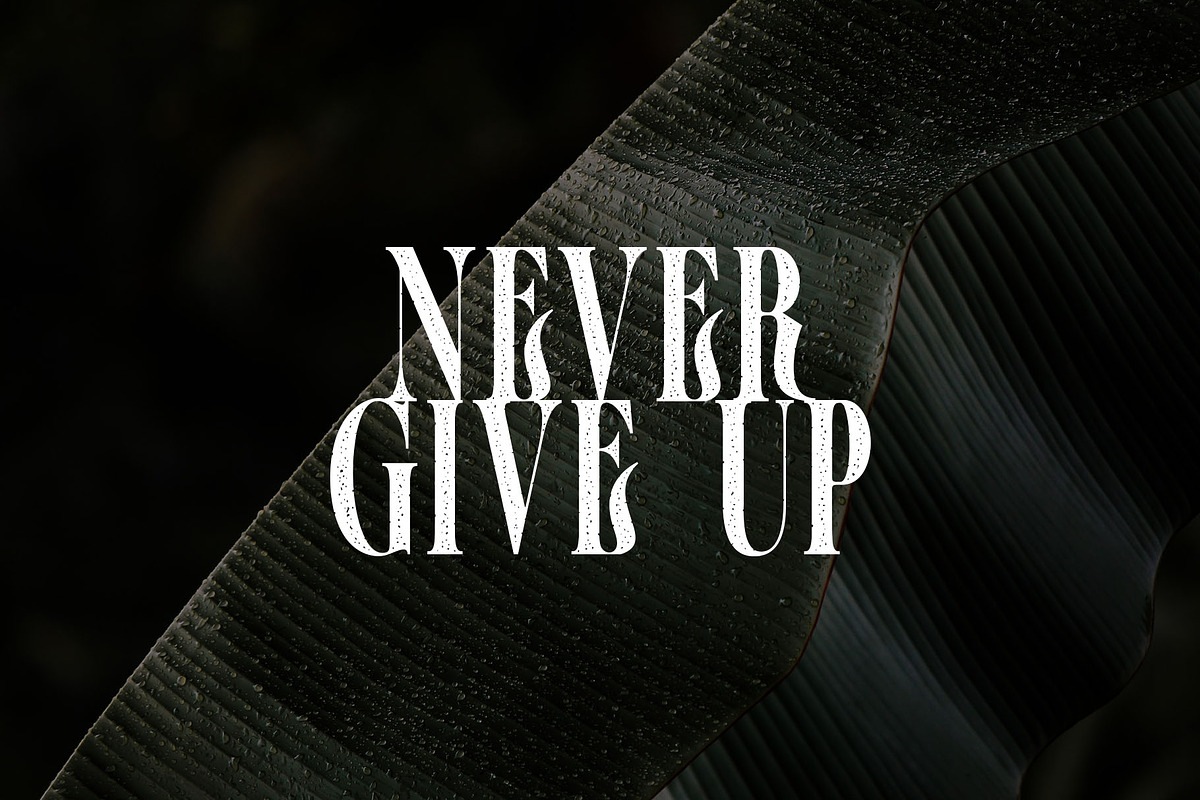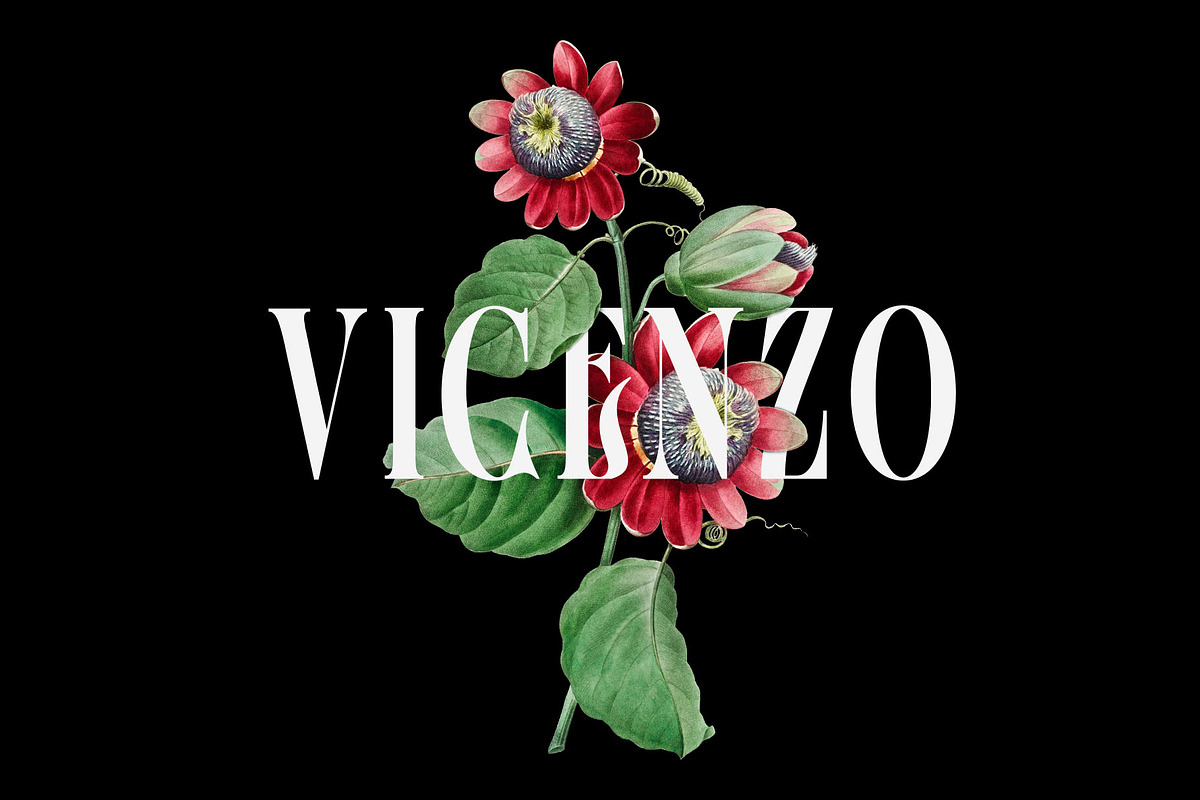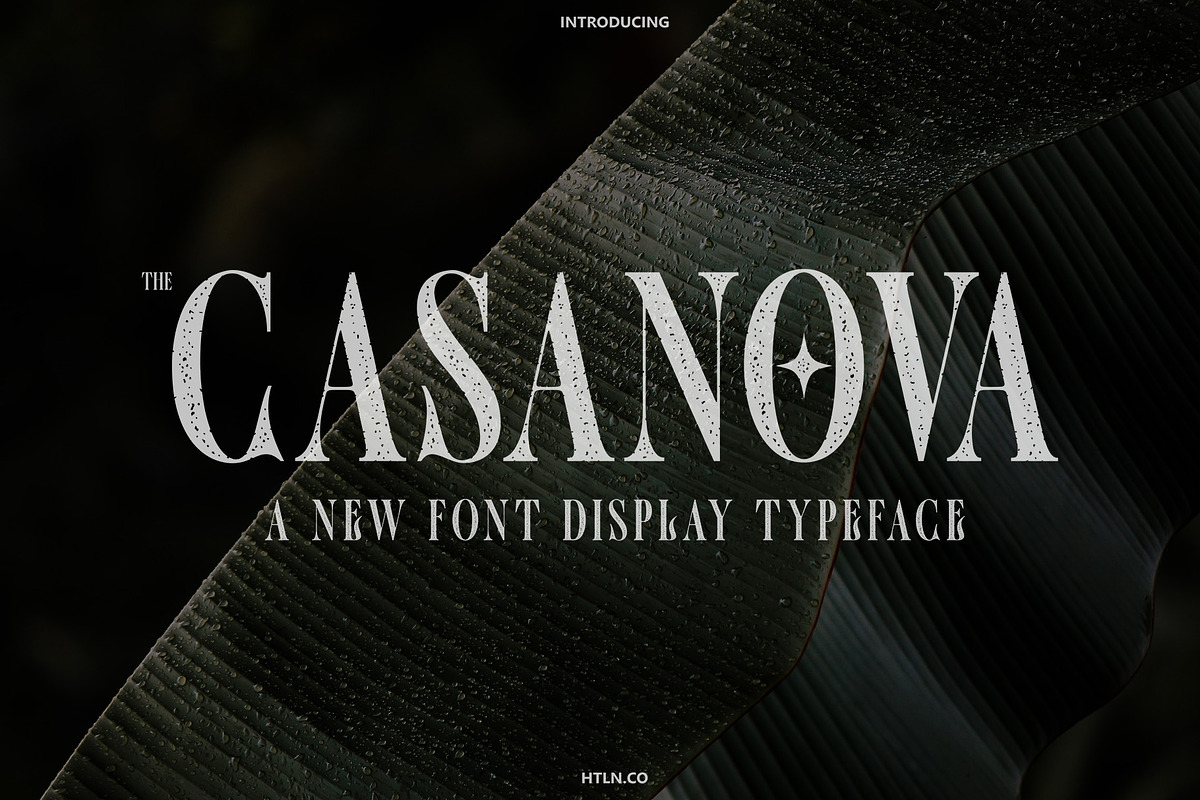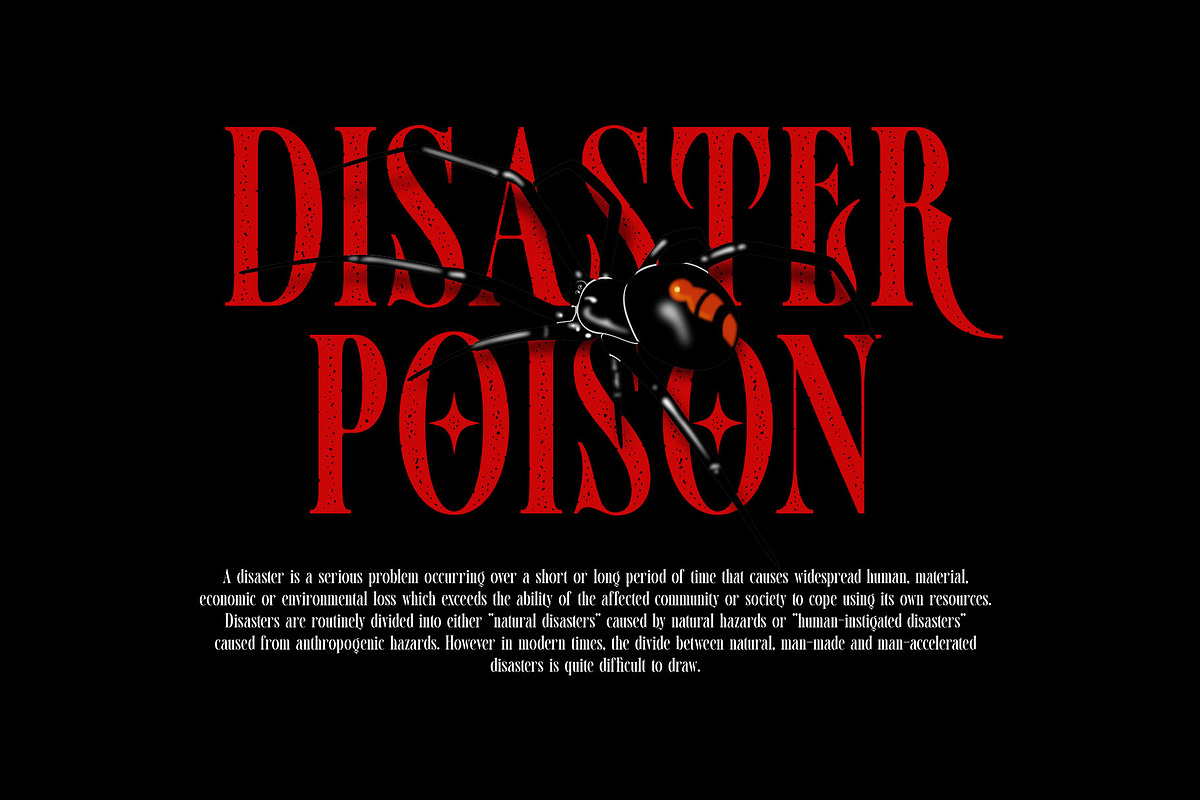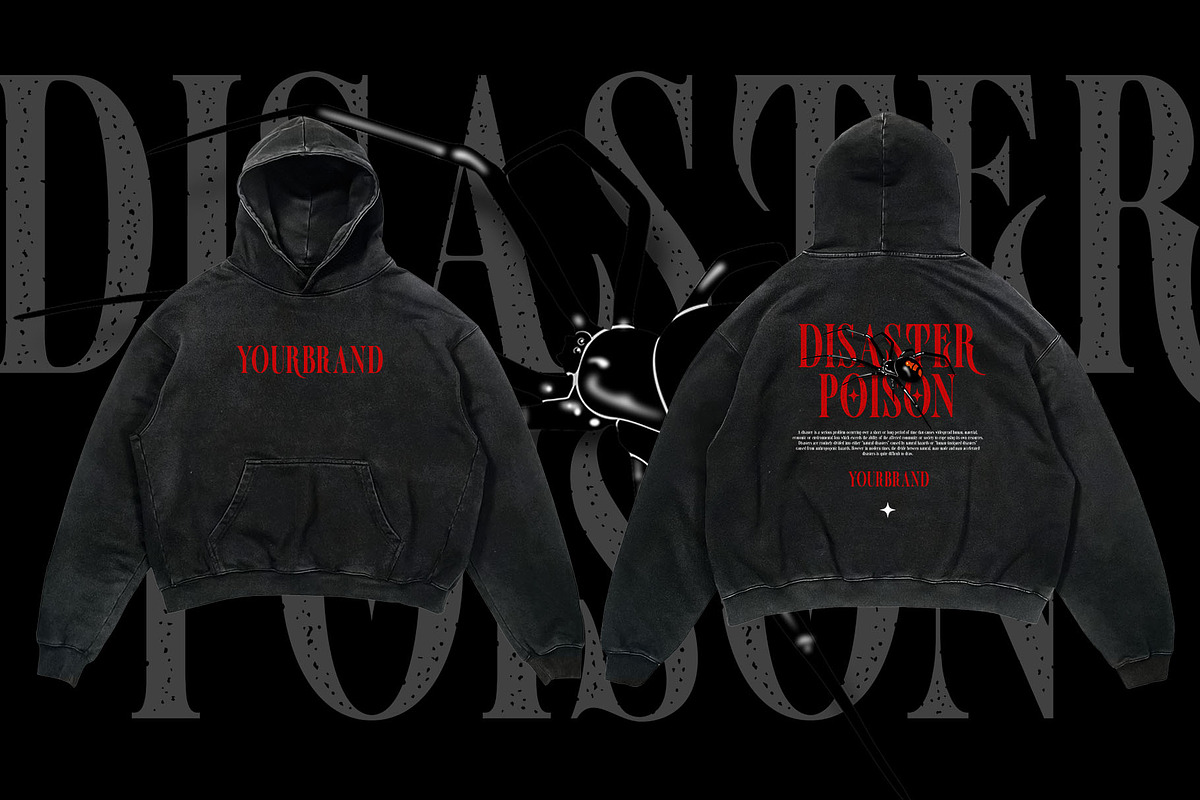
The Casanova (clean & rough)
The Casanova is new font display typeface with two style clean and rough character set. To create the beautiful combination, just mix the uppercase and lowercase then mix with the alternative glyphs. The Casanova font includes a full set of capital and lowercase letters, as well as multi-lingual support, currency figures, numerals, punctuation & some extra glyphs.
The Casanova Font equipped with :
- Clean and Rough
- Character Set A-Z
- Stylistic alternates
The Casanova font is suitable font for many creative products Design and easy use.